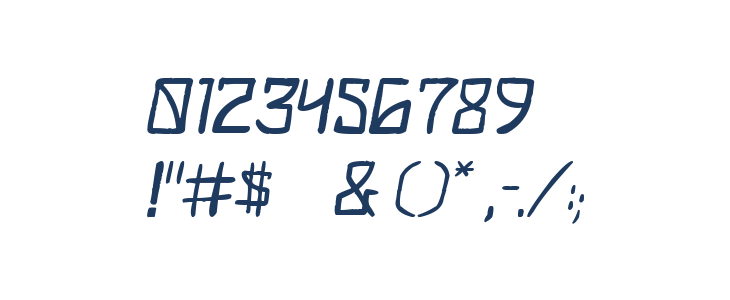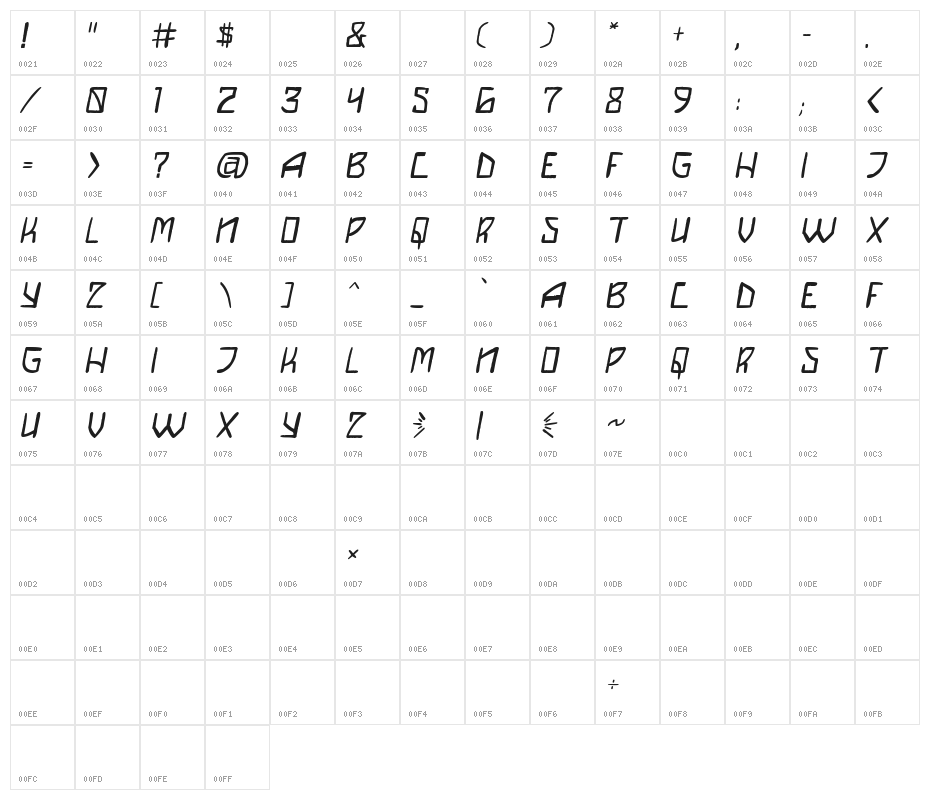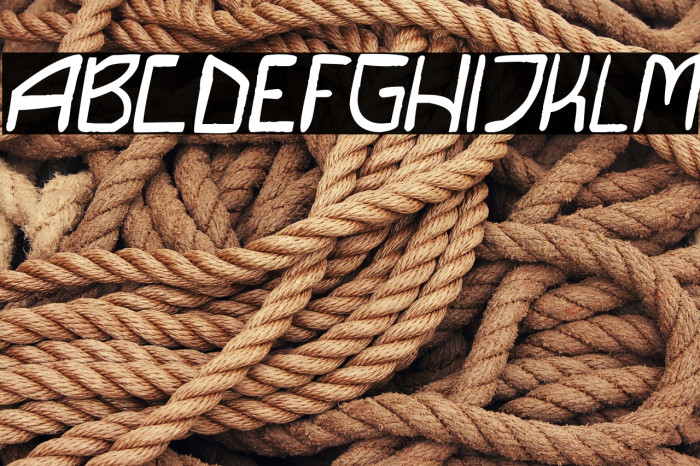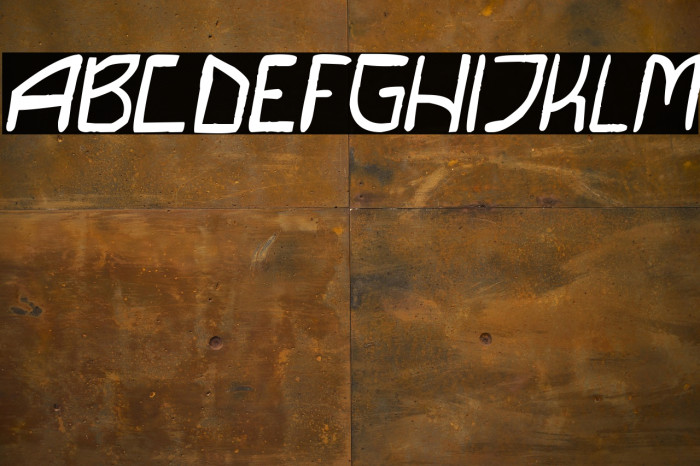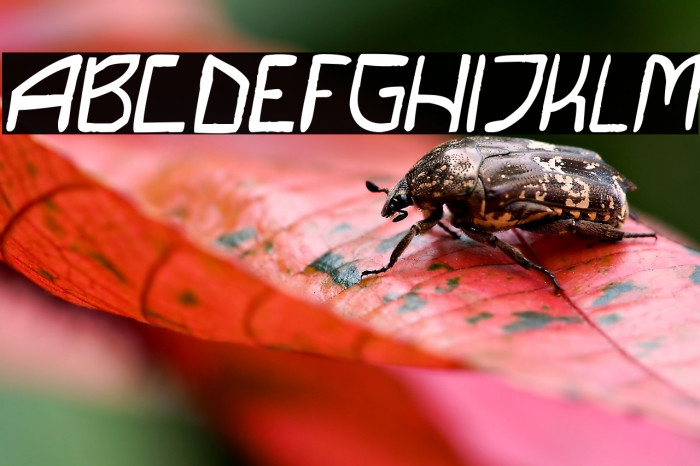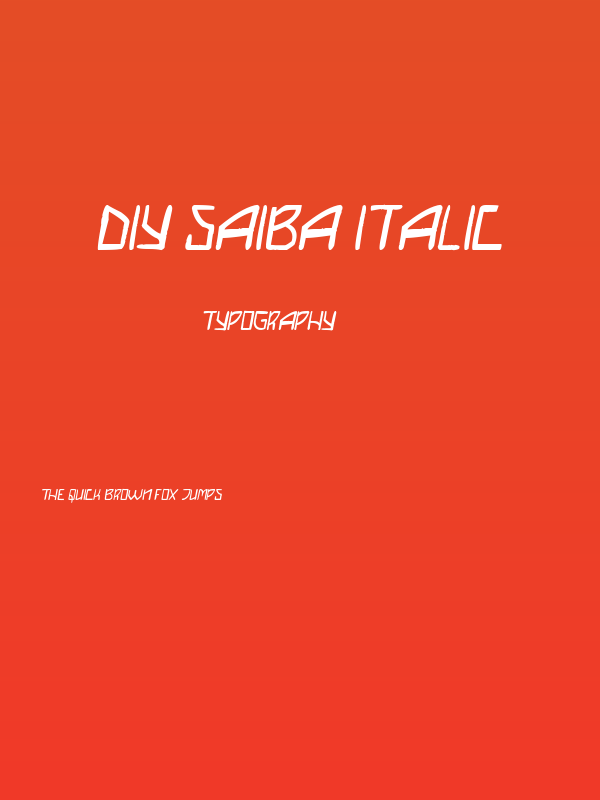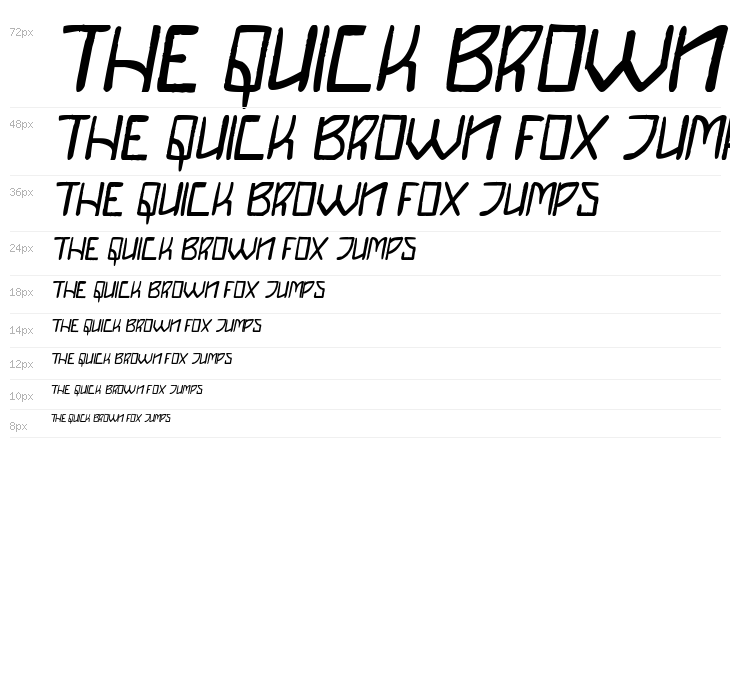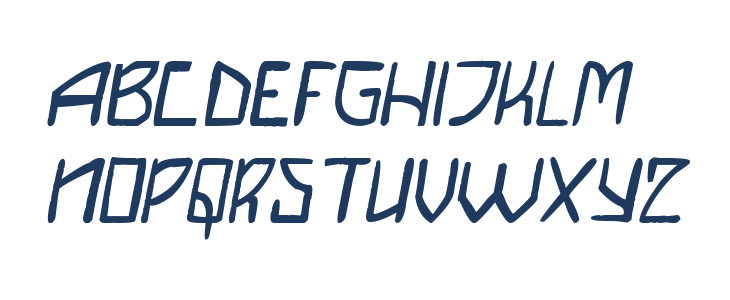
DIY Saiba Italic Font
DIY Saiba Italic Description
This font features a dynamic and energetic style with a handwritten appearance. The letters are slightly slanted, giving it an italicized look that adds a sense of motion and fluidity. The strokes are bold and consistent, with a moderate contrast between thick and thin lines. The characters are well-spaced, providing a balanced and readable text. Its unique design makes it suitable for creative and expressive projects, where a personal touch is desired.
Use CaseLogos, Headlines, Creative projects
Proposed ProjectsIdeal for creative projects such as posters, logos, and branding materials that require a personal and expressive touch.